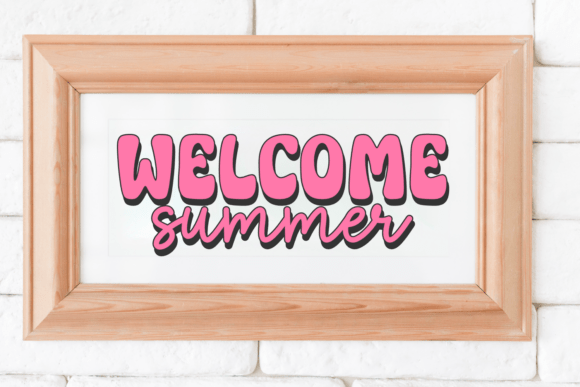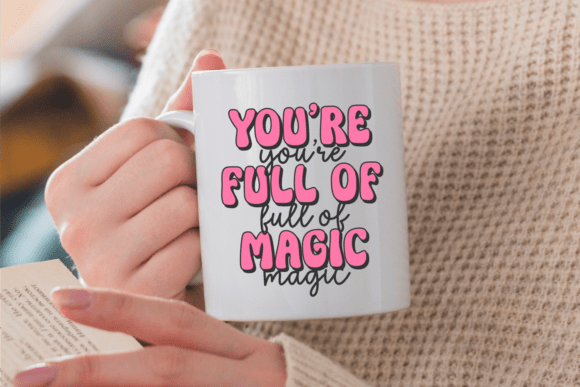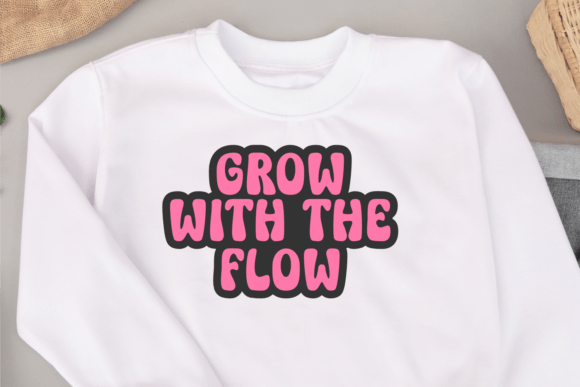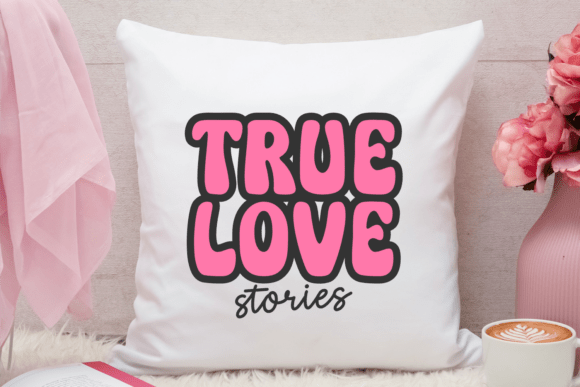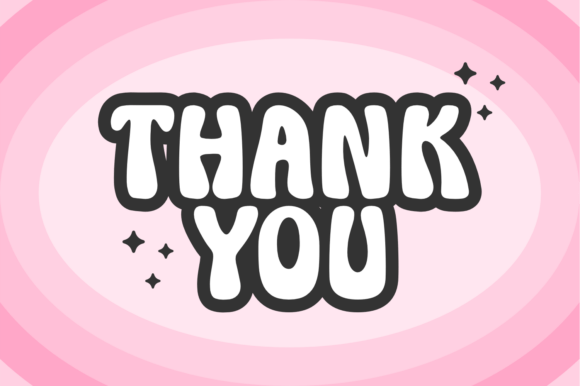
Introduction to Bubble Thick Font
Have you ever found yourself rummaging through your old craft box, searching for that one special font to bring a personal touch to a handmade card or a DIY project? The thrill of discovering a unique design element can be exhilarating, and today, we’re excited to share with you a game-changing addition to your creative arsenal: the Bubble Thick Font.
This daring, fashionable, and whimsical retro display font is a design treasure trove, waiting to elevate your high-quality creative projects to new heights. Whether you’re working on a warm and inviting greeting card or a bold, attention-grabbing headline, the Bubble Thick Font seamlessly integrates into your artistic endeavors, infusing them with an air of romance and sophistication.
As a valuable resource for designers, the Bubble Thick Font offers a high degree of versatility, making it an ideal choice for projects that require a touch of elegance and whimsy. Plus, with its transparent background, it’s the perfect design element to layer over other elements, creating a visually stunning effect. And the best part? It’s available for free download, making it an instant addition to your design library.
Key Features of Bubble Thick Font
- High-quality design resource with a unique, playful aesthetic perfect for creative projects.
- Features a transparent background, allowing for easy customization and layering in your design.
- Includes multiple font styles and weights, providing versatility for a range of design applications.
- Designed with a high-resolution output in mind, ensuring crisp and clear typography at various sizes and resolutions.
- Perfect for use in digital design, including web graphics, social media, and advertising, as well as print materials like business cards and brochures.
Honest Review: Bubble Thick Font
I recently stumbled upon the Bubble Thick Font, and I must say it’s been a game-changer for my creative projects. The high-quality design and unique style make it an excellent addition to any design resource.
- ✨ The font’s thick lines and bubbly texture add a fun and playful touch to any design.
- ✨ The transparent background makes it easy to combine with other design elements.
- ⚠️ The font may not be suitable for all design projects, especially those requiring a more minimalist or formal look.
- ⚠️ The font’s bold style may not be legible at smaller sizes.
Overall, I’m thoroughly impressed with the Bubble Thick Font. Its unique style and high-quality design make it a valuable resource for designers. Whether you’re working on a fun project or need a bold font for a creative campaign, this font is definitely worth checking out.
Bubble Thick Font
To use Bubble Thick Font in PowerPoint or Word, select the text tool and choose the Bubble Thick Font from the font library. You can customize the font size, color, and alignment to suit your design. To add a transparent background, use the background settings to adjust the background color or image.
Design Resource and Tips
Bubble Thick Font is a high-quality design resource that is perfect for creative projects. To get the most out of it, use it in conjunction with other design elements, such as graphics and images. You can also use it as a free download for personal or commercial projects. Remember to use it transparently by adjusting the background opacity or color.
Bubble Thick Font is commonly used in social media graphics, posters, and flyers. It’s also used in branding and marketing materials, such as logos and business cards. Its unique style and high-quality design make it a popular choice for creative projects.